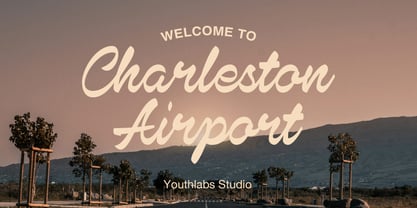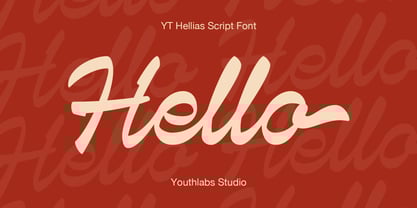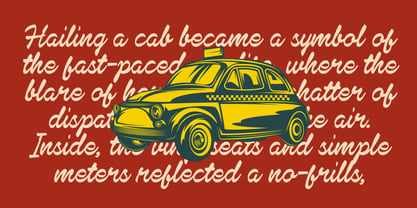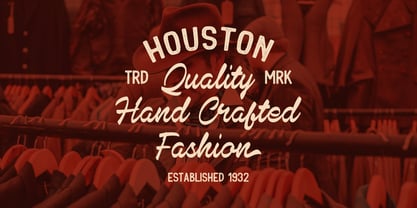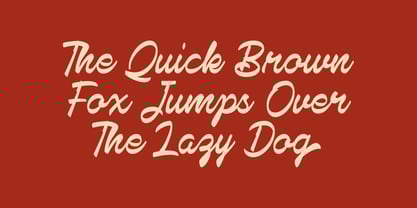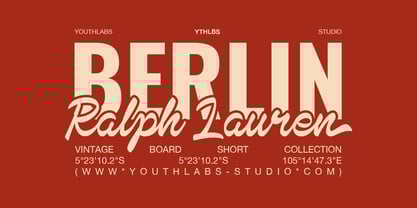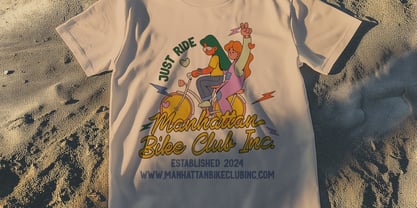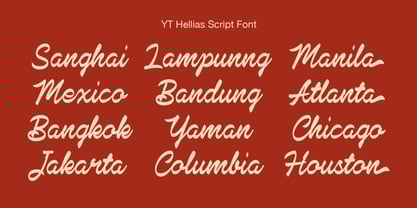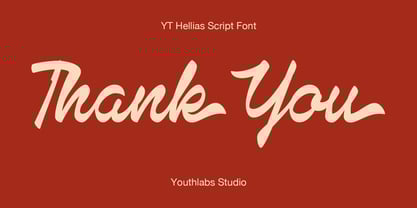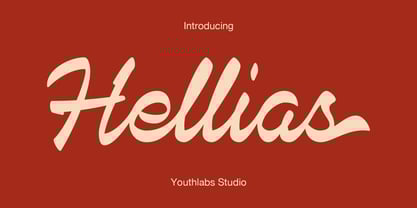
YT Hellias
Die Schriftfamilie YT Hellias wurde von Fathi Al Ghazi entworfen und von Youthlabs veröffentlicht. YT Hellias enthält 1 Stile. Mehr über diese Familie
Introducing YT Hellias,a retro script font that exudes timeless character and elegance. Inspired by classic eras, YT Hellias is crafted for creators who want to infuse their work with a vintage vibe. Its consistent yet artistic brushstrokes give an authentic feel, making every project come to life with a story to tell. YT Hellias is the perfect choice for posters, logos, packaging, and any other retro-inspired designs. Bold, strong, and captivating—let this font elevate your creativity to new heights. Get YT Hellias now and start creating designs that stand the test of time!